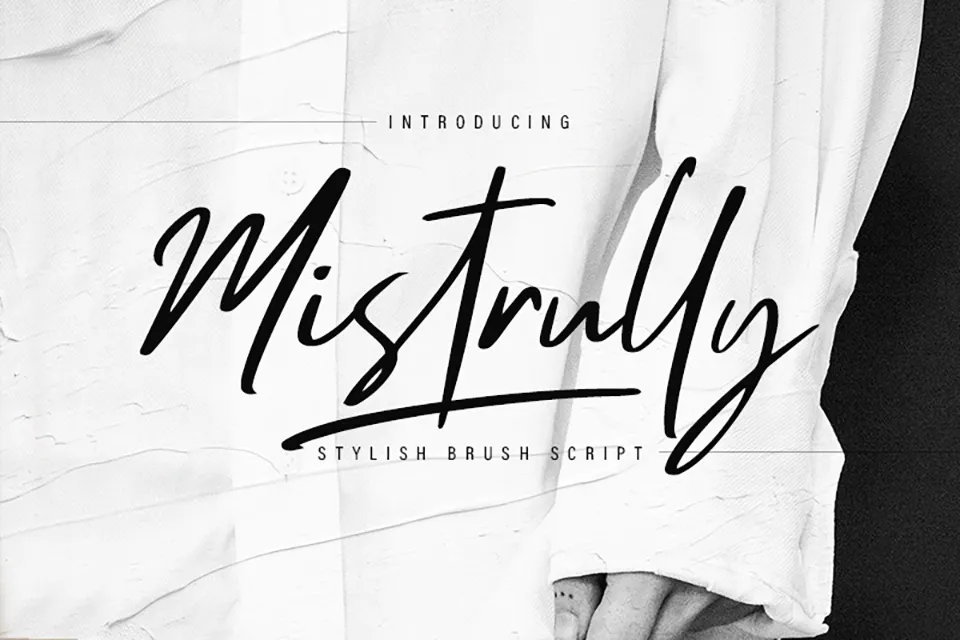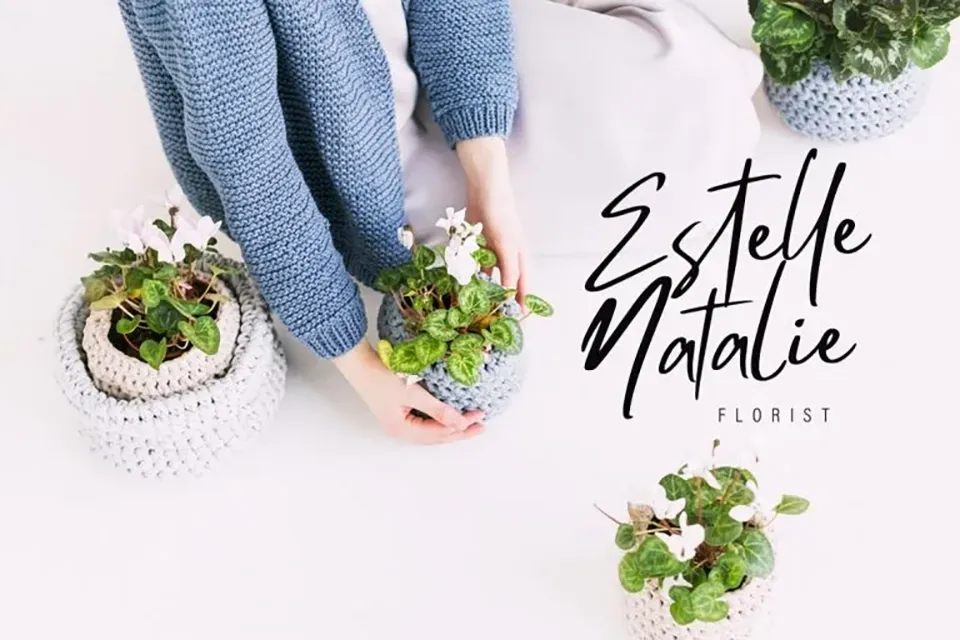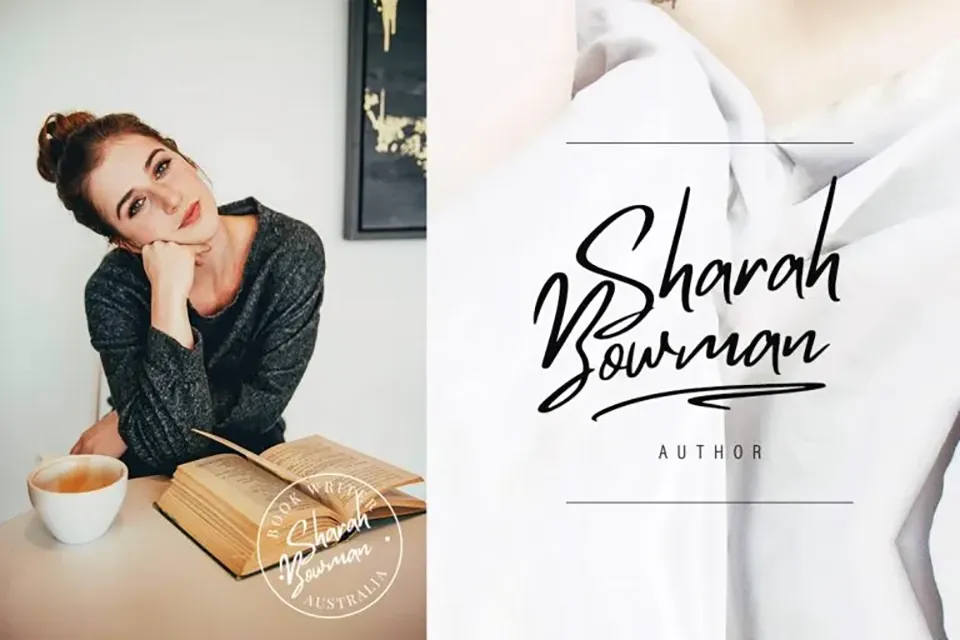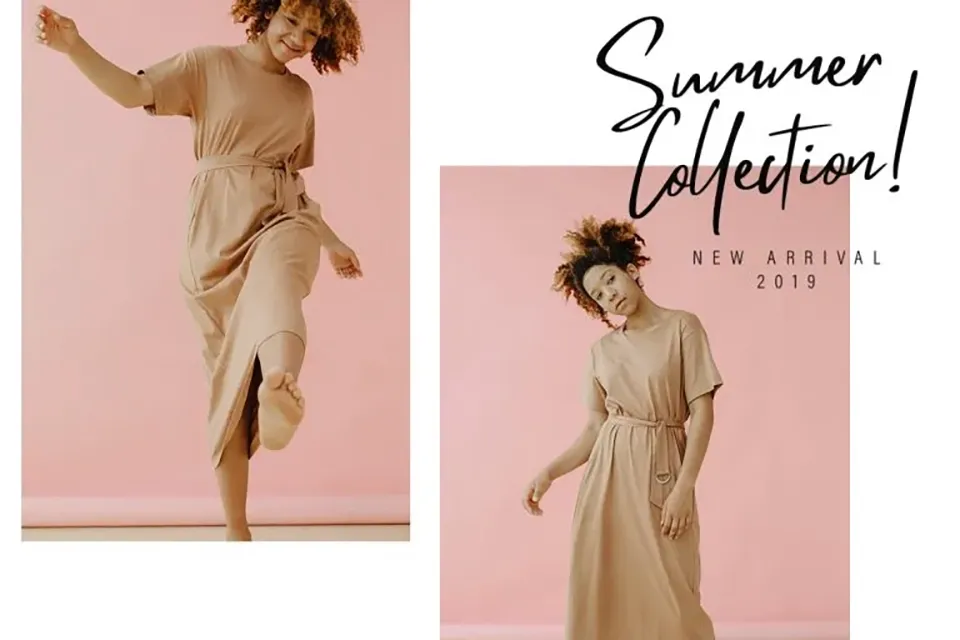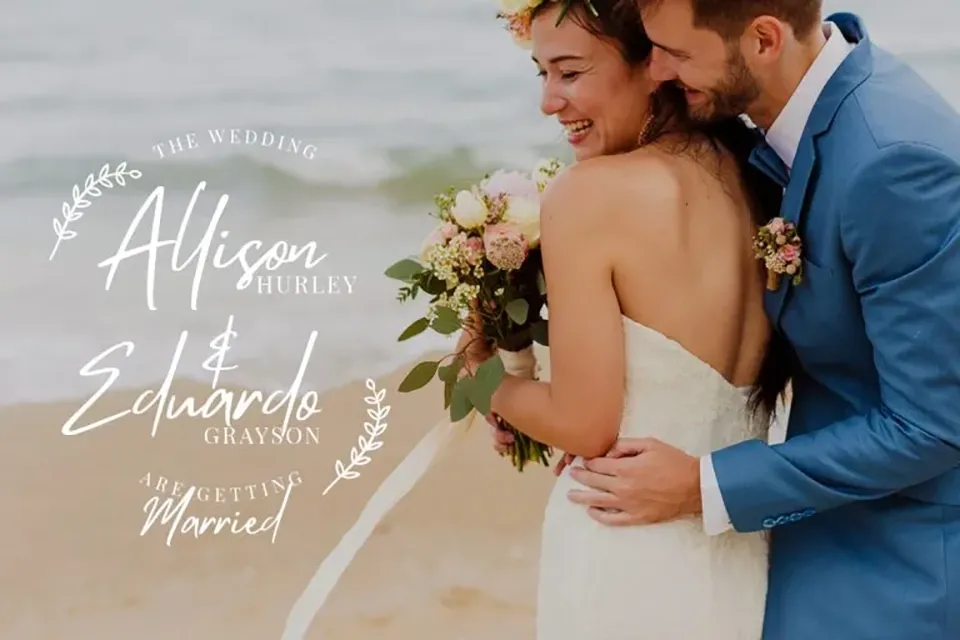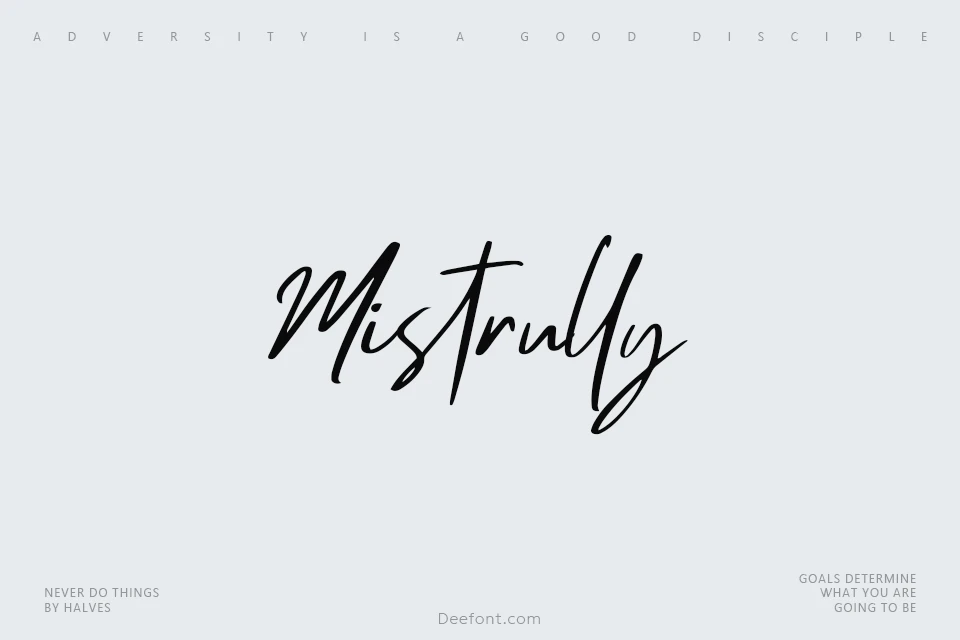
Mistrully Font
Mistrully Font is a stylish brush script typeface that exudes energy and elegance. With its bold, hand-drawn strokes and natural flow, it brings a dynamic and personal touch to any design. Perfect for branding, logos, social media graphics, posters, and wedding invitations, Mistrully combines modern sophistication with a playful edge. Its versatile design ensures readability while adding a unique flair to your projects. The font includes uppercase and lowercase letters, ligatures, and punctuation, making it highly adaptable for various creative applications. Mistrully is the ideal choice for designers seeking a bold yet refined handwritten aesthetic.